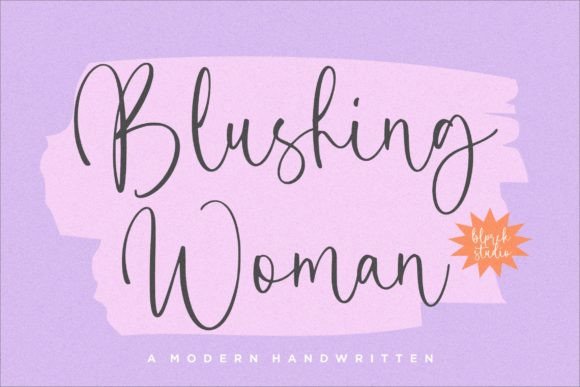
Get swept off your feet by the enchanting Blushing Woman Font, a captivating script font ready to make a statement in your creative endeavors. Let your imagination run wild as you discover the endless possibilities of this expressive typeface.
Immerse yourself in the beauty of Blushing Woman's graceful curves and delicate strokes. This elegant font exudes a sense of charm and sophistication, adding a touch of allure to any project you undertake. Create stunning digital designs that captivate your audience, or add a personal touch to your handmade crafts, breathing life into your creations.
Whether you're crafting personalized greeting cards, designing eye-catching presentations, or simply exploring your artistic side, Blushing Woman Font is your perfect companion. Its versatility knows no bounds, allowing you to effortlessly transform your ideas into captivating realities. Unleash your creativity and let Blushing Woman Font guide you towards artistic triumphs.
Indulge in the beauty of Blushing Woman Font today and unlock the boundless potential of self-expression. Let your imagination flourish as you discover the joy of creating with this remarkable script font.